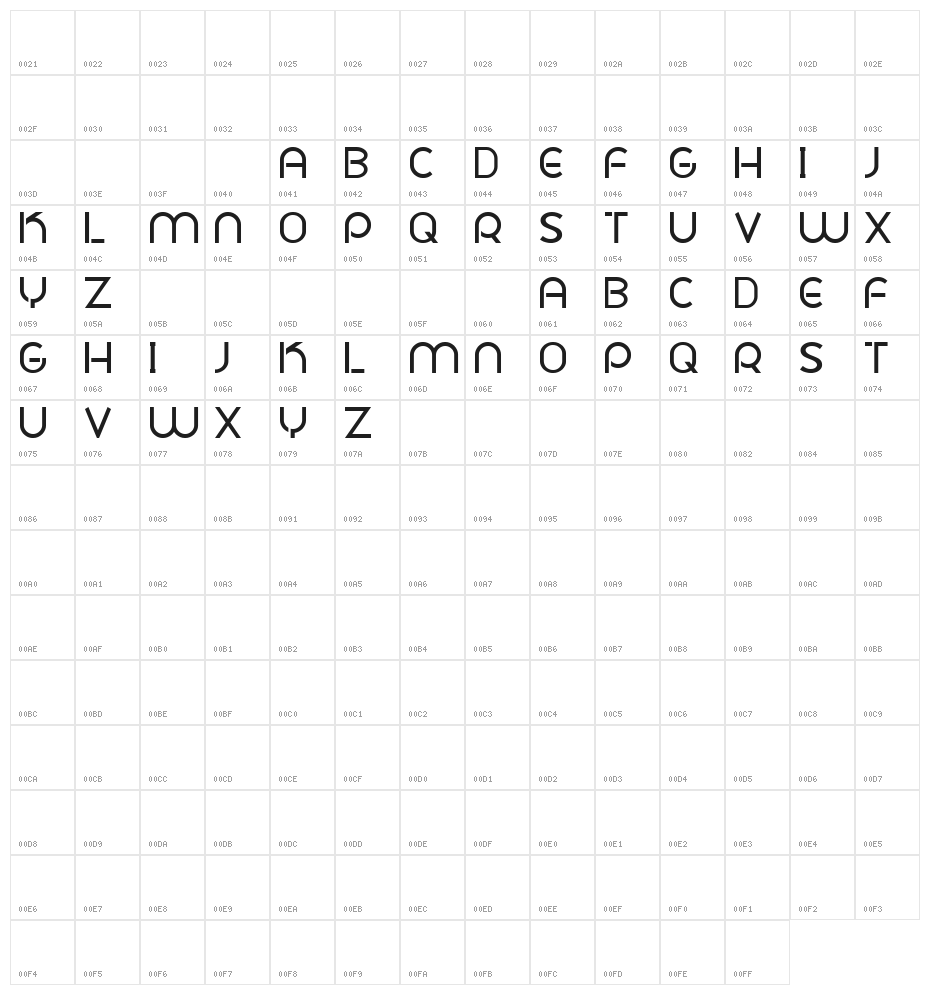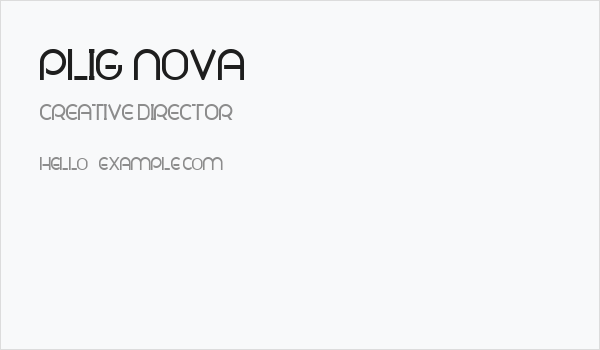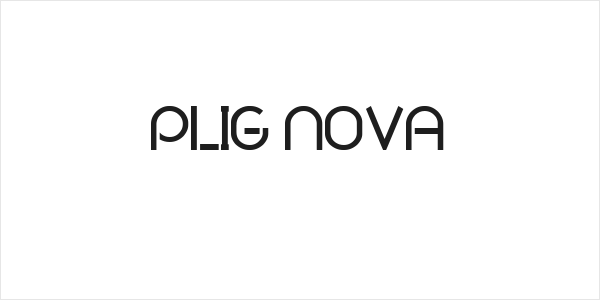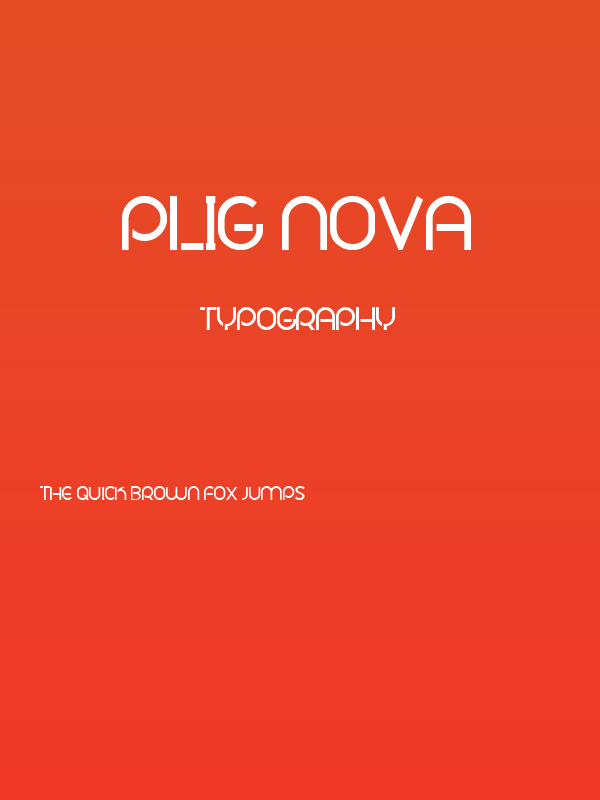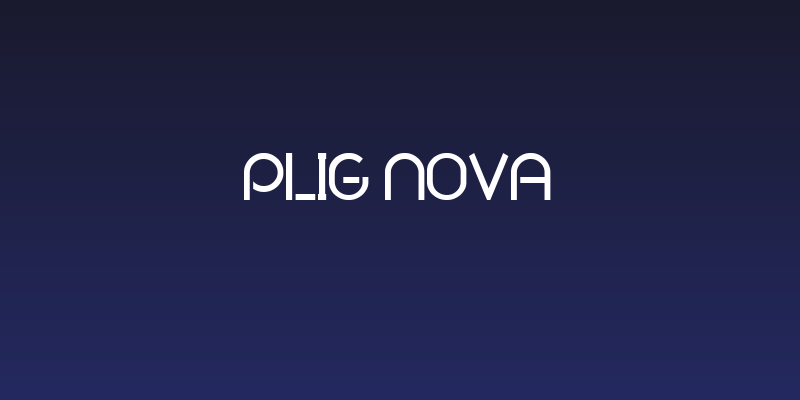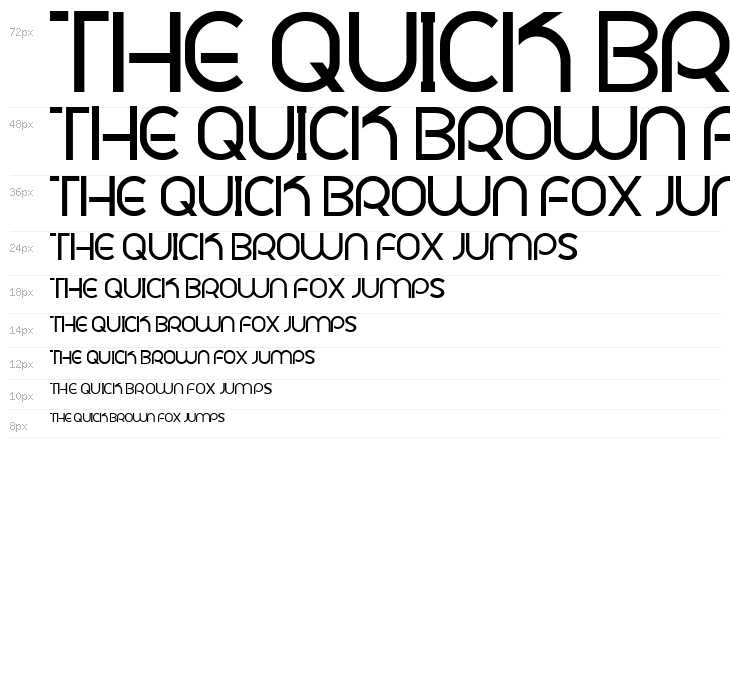
Plig nova Font
Plig nova Description
This font features a modern and geometric design with clean, straight lines and sharp angles. The uppercase letters are distinct with a futuristic appearance, characterized by uniform stroke widths and minimalistic forms. The lowercase letters maintain the same geometric style, offering a cohesive look throughout the typeface. The numerals are consistent with the overall design, providing a sleek and contemporary feel. Special characters are designed to match the font's aesthetic, ensuring versatility in various applications.
| Use Case | Headlines, Logos, Digital interfaces |
| Proposed Projects | Ideal for tech branding, modern advertising, futuristic posters, and digital interfaces. |